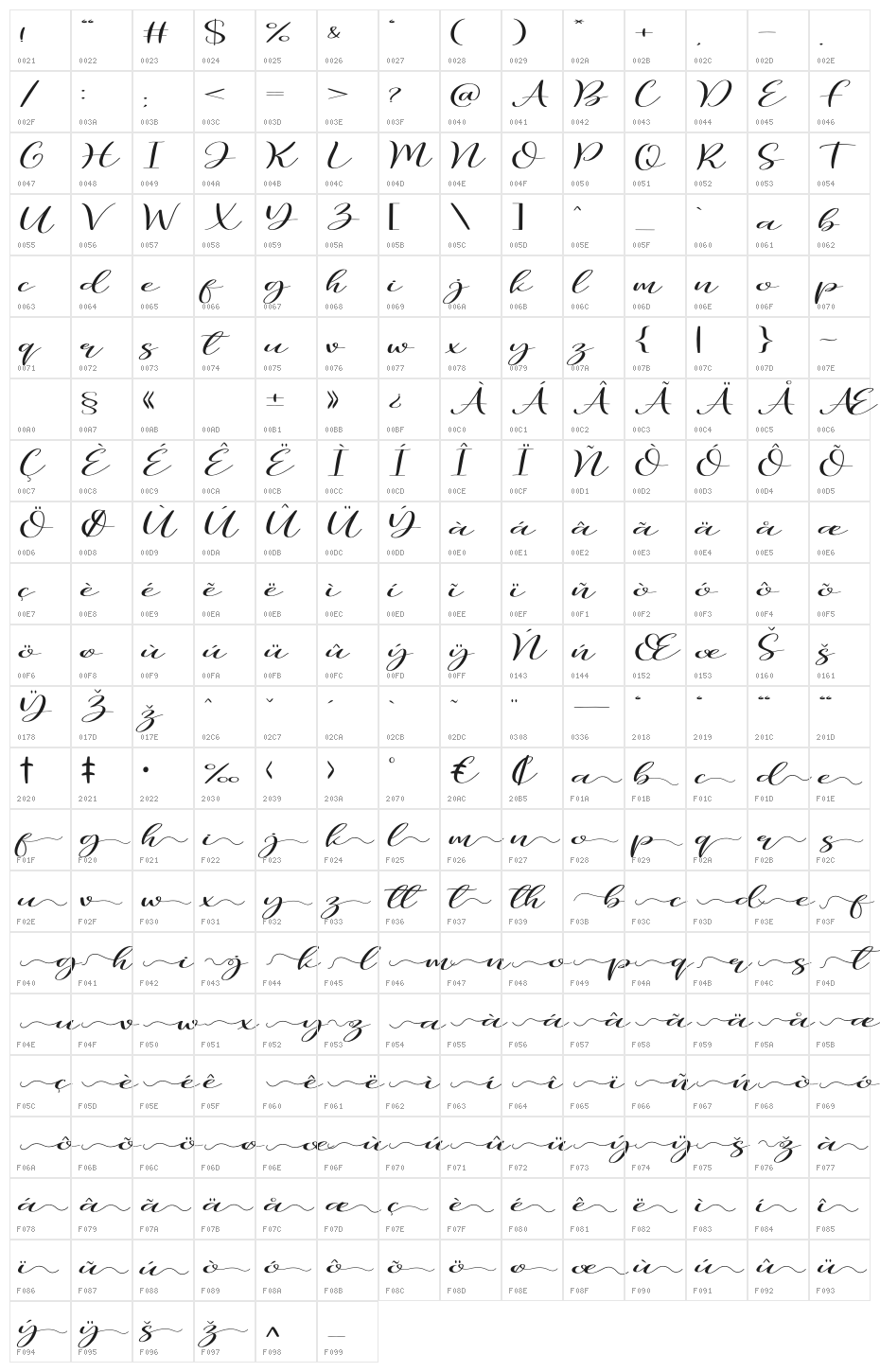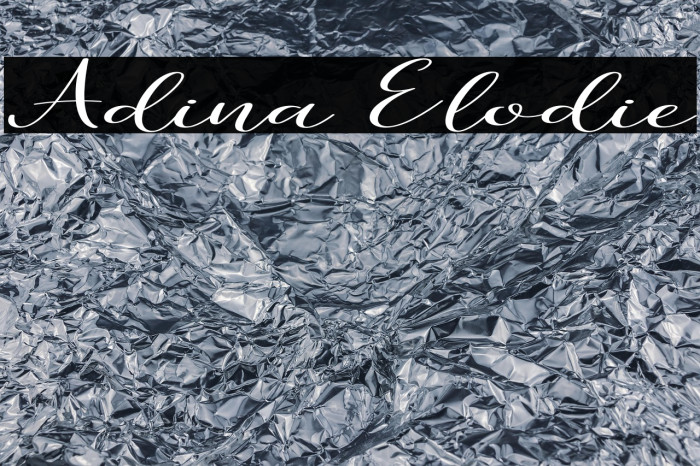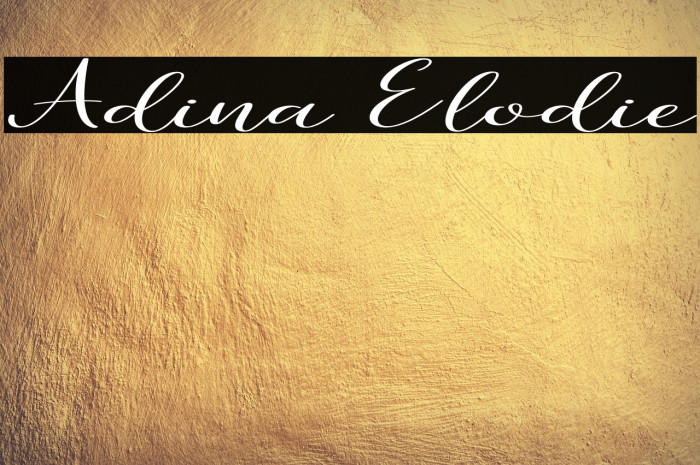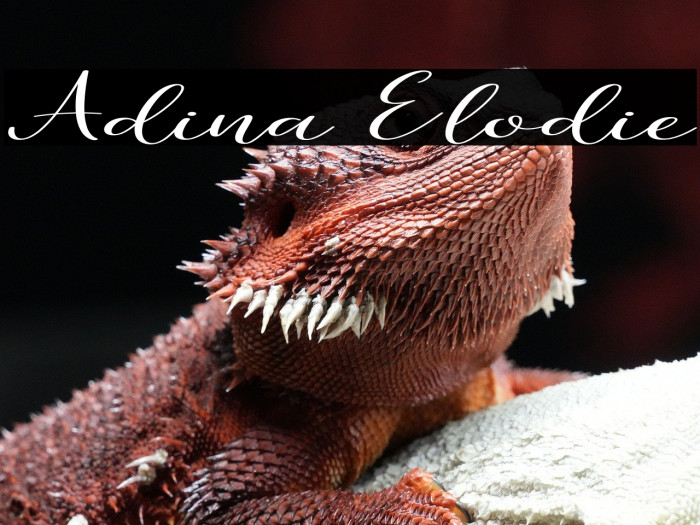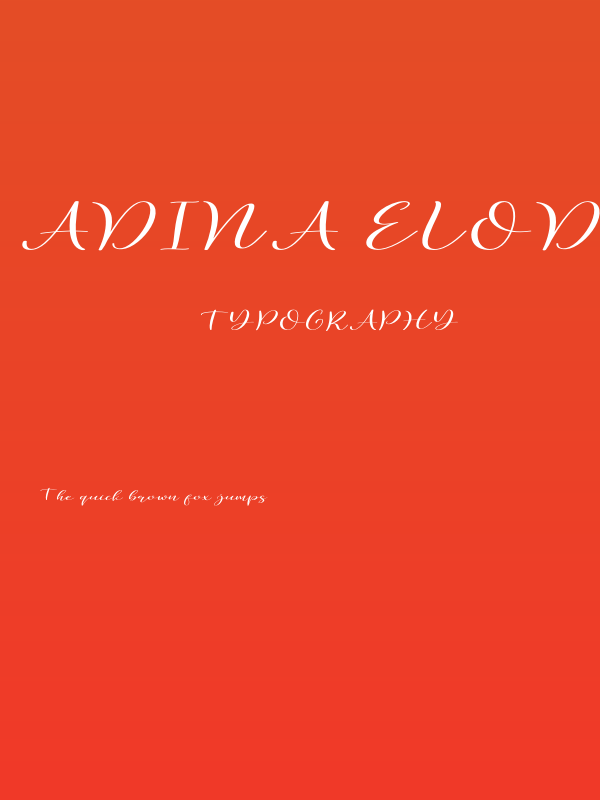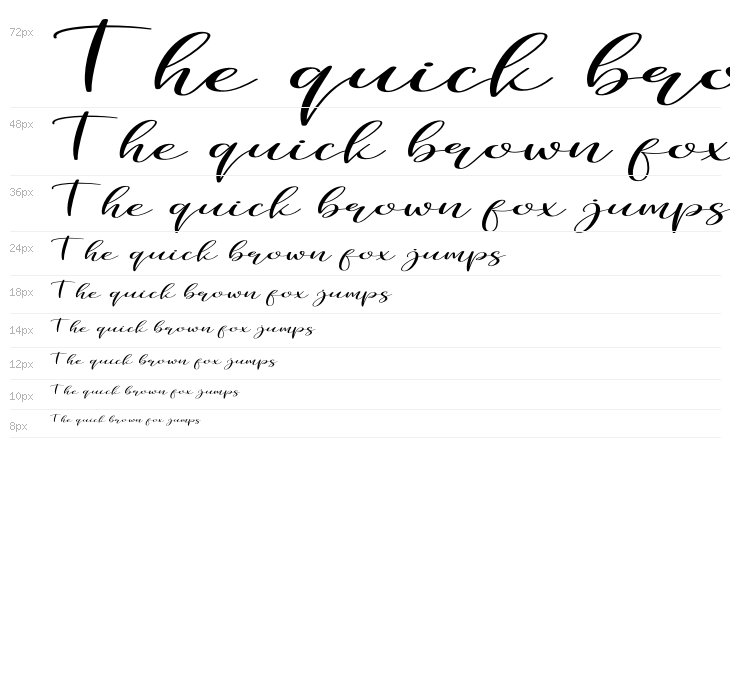
Adina Elodie Font
Adina Elodie Description
This elegant script font features a flowing, cursive style with smooth, sweeping curves and a sophisticated flair. The uppercase letters are gracefully elongated, while the lowercase letters maintain a consistent, harmonious flow. The font exhibits a delicate balance between thick and thin strokes, enhancing its refined appearance. The characters are well-spaced, providing a sense of airiness and readability. This font is ideal for projects that require a touch of elegance and sophistication, such as wedding invitations, formal event branding, or luxury product packaging.
| Proposed Projects | Wedding invitations, formal event branding, luxury product packaging. |